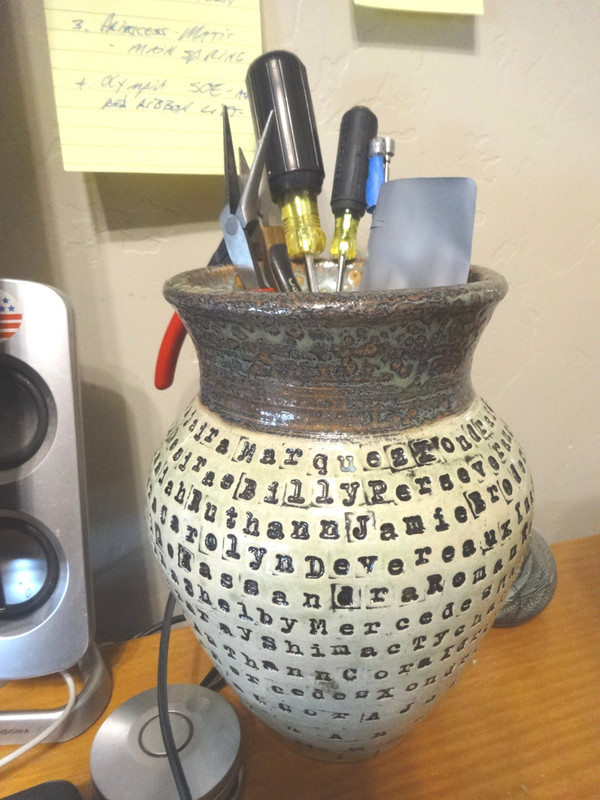
Curious was pops up on Shop Goodwill when you search for "typewriter".Too unique to pass up.Seems like real type-slugs were pressed into the clay before glazing & firing..